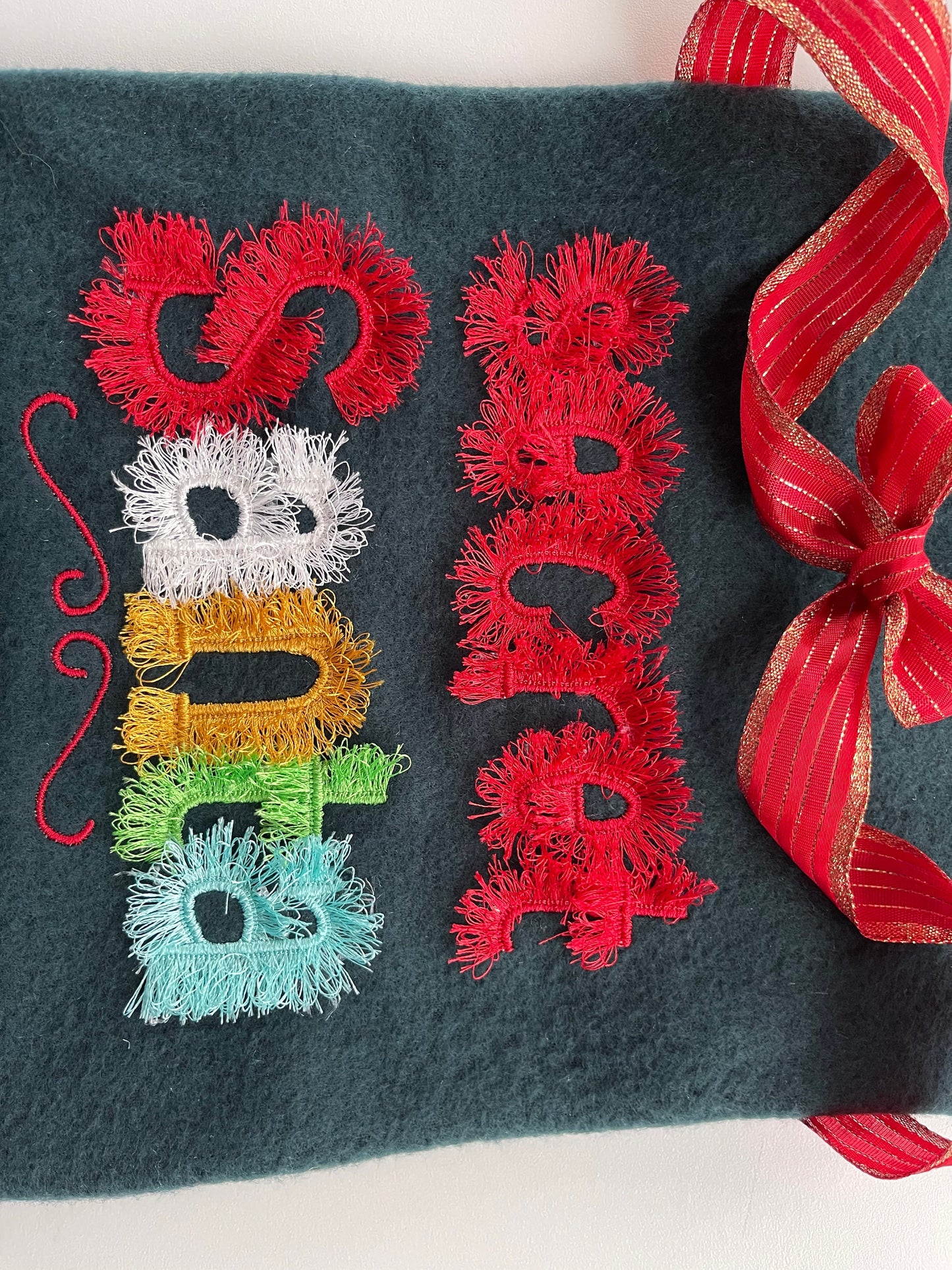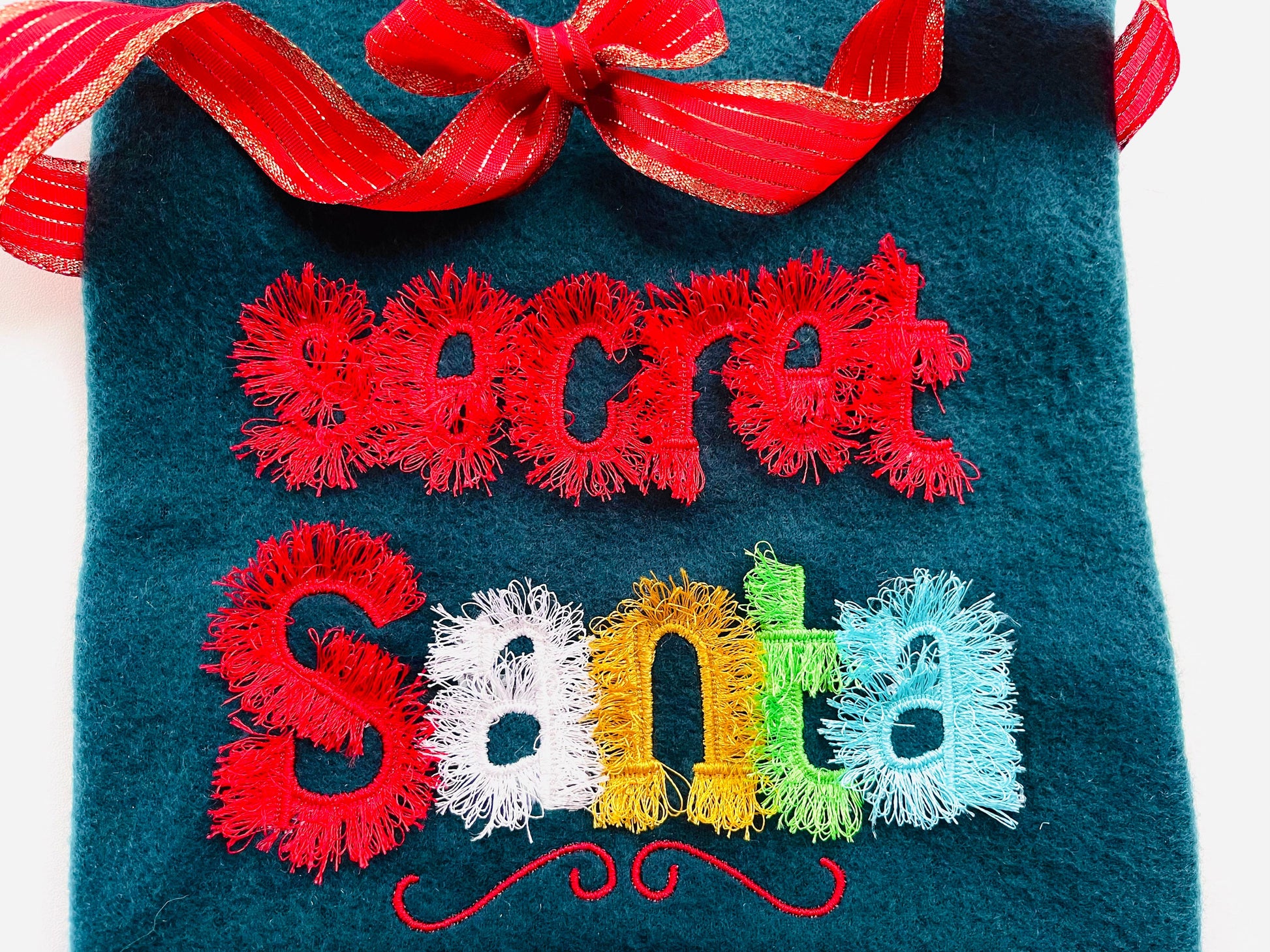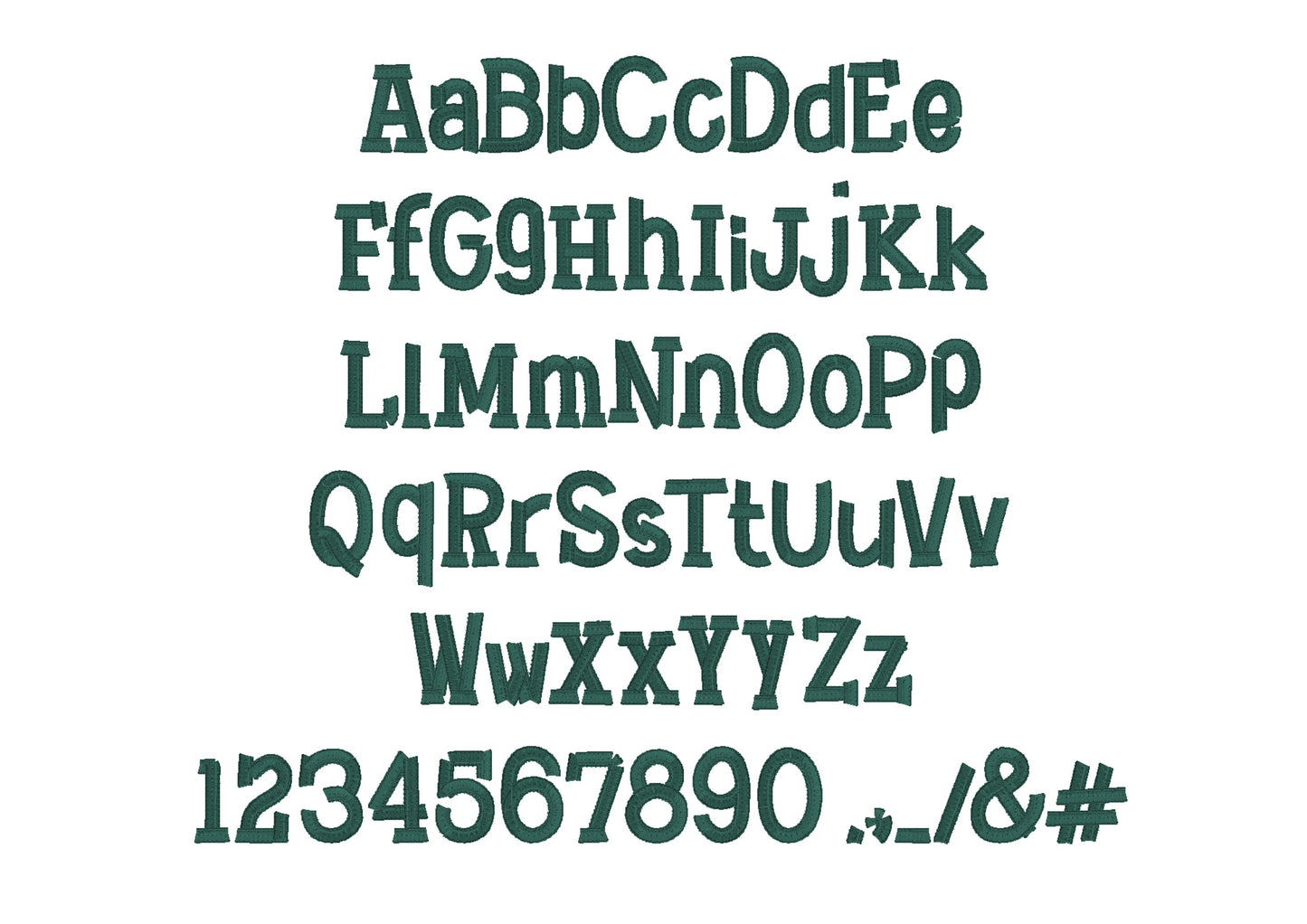
Original Fringed Font
Uppercase and lowercase letters, numbers 0 to 9 and punctuation, in five sizes: 1.5, 1.8, 2.1, 2.5 and 2.8 inches. Large satin stitches are cut from the back and fluffed into fringe, and a special seam keeps the fringe safe to wash.
- Fluffy fringed font
- Uppercase and lowercase letters, numbers 0-9, punctuation
- 5 sizes, 1.5 to 2.8 in